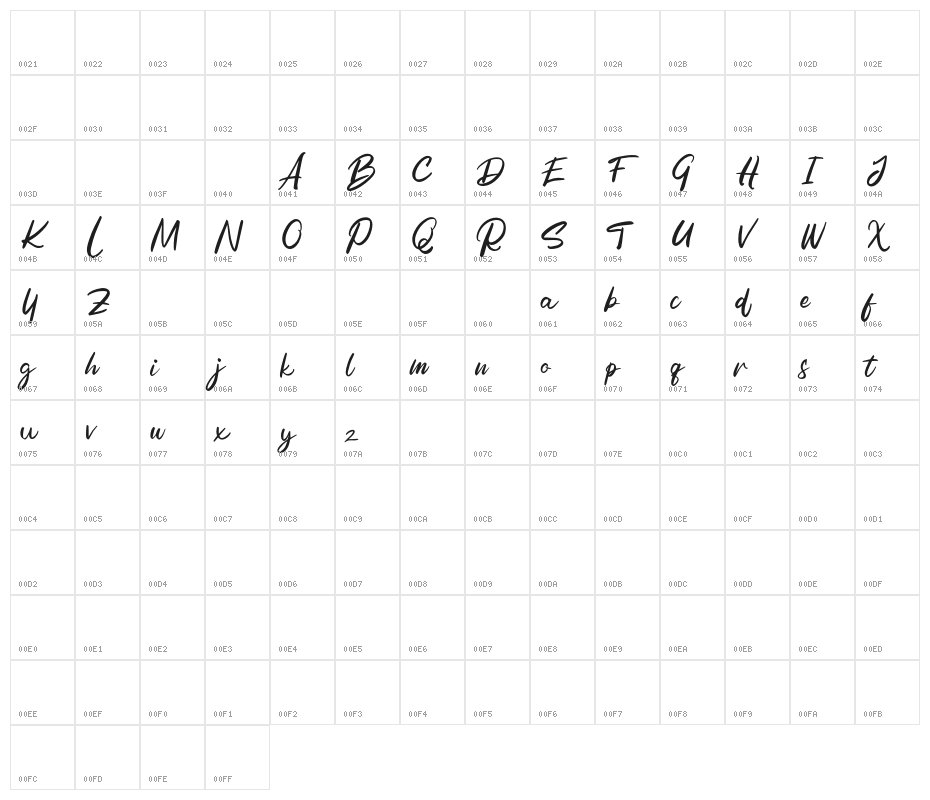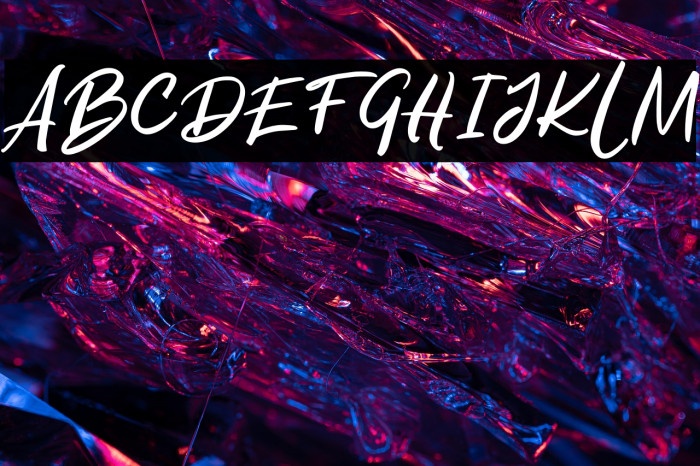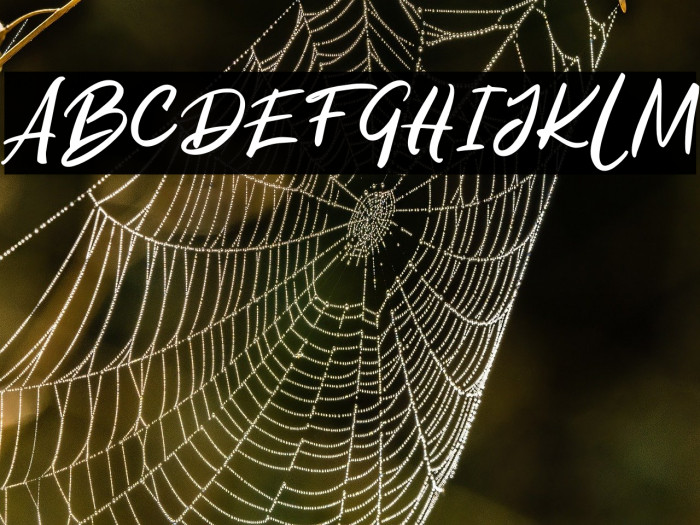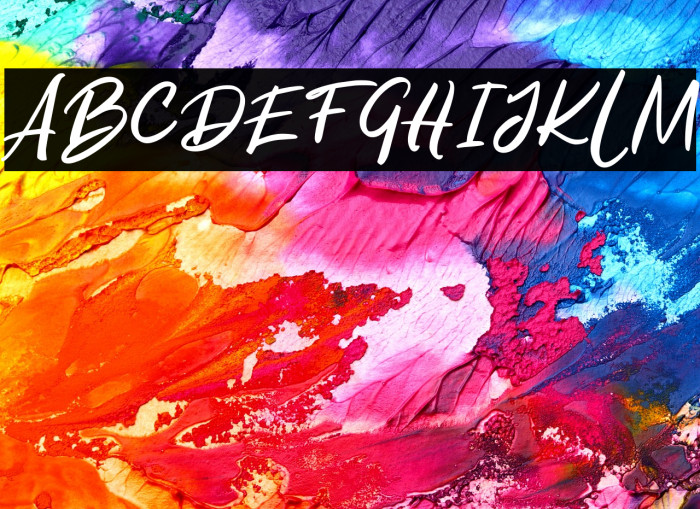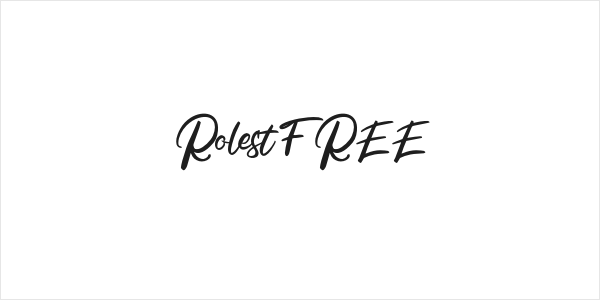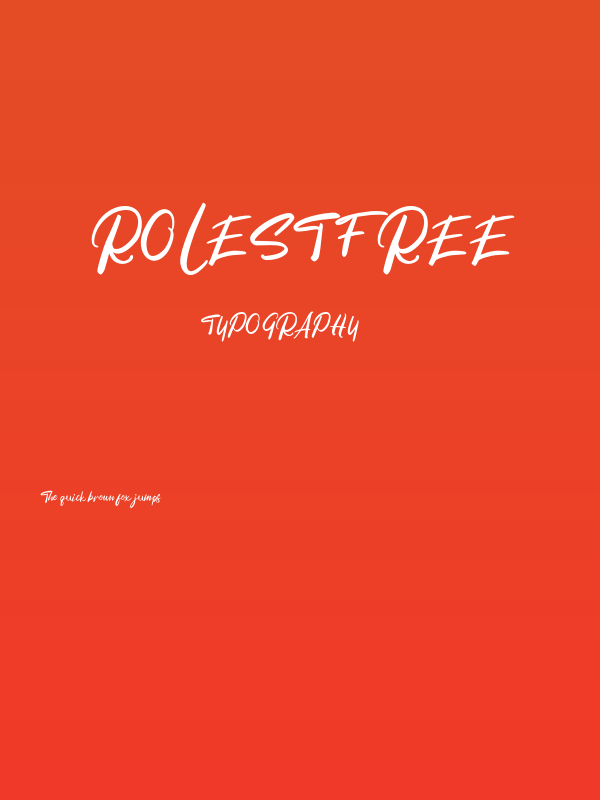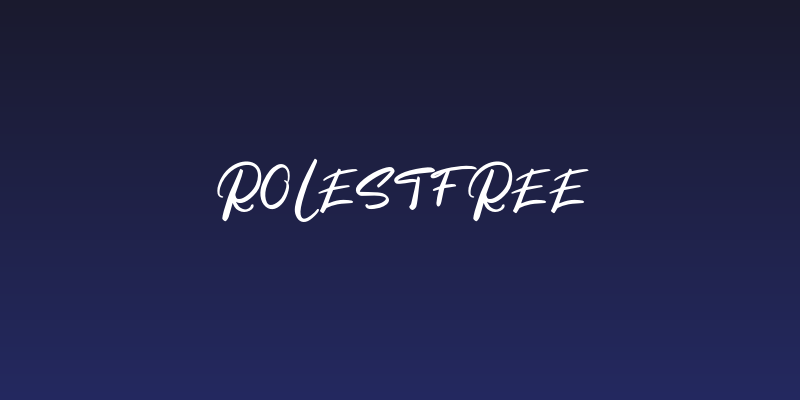
RolestFREE Font
RolestFREE Description
This font features a dynamic and fluid script style, characterized by its smooth, flowing strokes and elegant curves. The uppercase letters are bold and slightly slanted, giving a sense of movement and grace. The lowercase letters maintain a consistent style, with rounded edges and a natural, handwritten appearance. The font exudes a sense of sophistication and creativity, making it ideal for projects that require a personal touch. Its legibility is enhanced by the moderate spacing between characters, allowing each letter to stand out while maintaining a cohesive look.
| Overall Style | Elegant and Creative |
| Use Case | Logos, Invitations, Decorative Text |